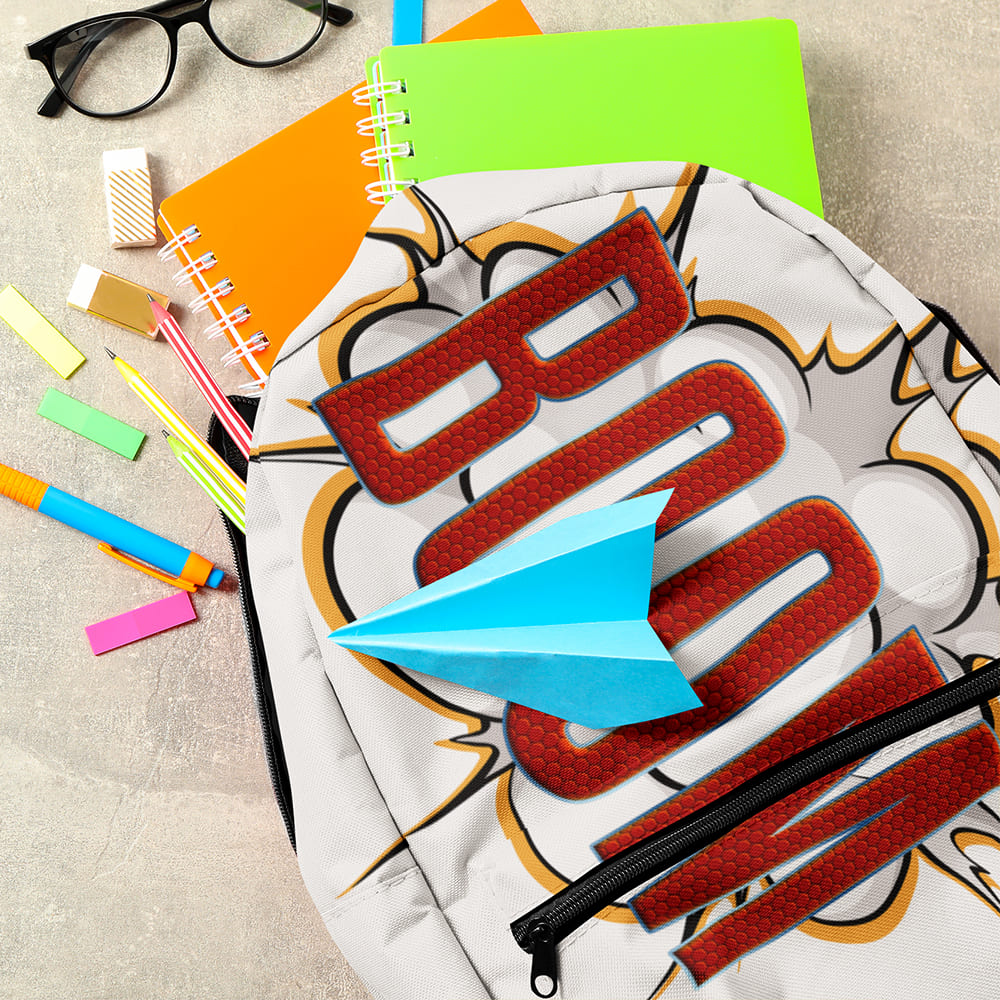
Red Spider Font
Bold, Agile, Legendary 🕷️🦸♂️🕸️
Swinging between the skyscrapers and deep canyons of New York City, a legend rises – the friendly neighborhood spider! Inspired by the iconic comics of Stan Lee, the Red Spider Font brings this heroic dynamism straight into your design. Perfect for anyone who loves action, adventure, and a touch of superhero flair!
Why Choose the Red Spider Font?
🔹 Fast & dynamic – Just like a hero soaring through the skyline, this font boasts an energetic, agile look.
🔹 Perfect for bold statements – Whether for comics, gaming, merch, movie posters, or social media, this font screams action!
🔹 A symbol of good – Inspired by the fight against evil, this font gives every design a powerful, iconic presence.
Swing into Action with the Red Spider Font
Make your design epic, heroic, and unforgettable! This font is for those who love the spirit of classic superheroes.
🔹 Be bold. Be agile. Be legendary.
🔹 Choose action. Choose adventure. Choose the Red Spider Font.
🕷️🦸♂️🕸️💥